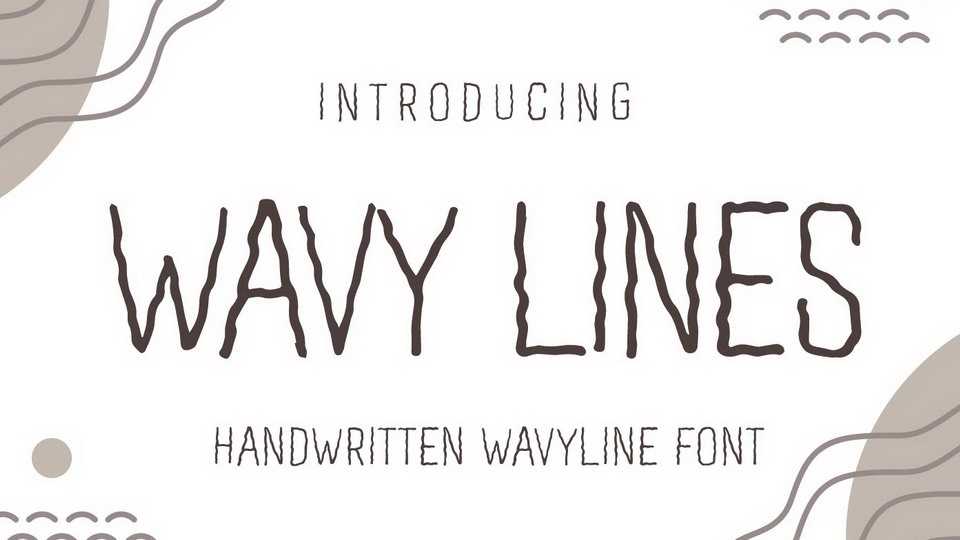
Download Wavy Lines font, a wave line typeface to support your project to make design more beautiful. Wavy Lines suitable for book cover, merchandise, poster, title, quotes, and many more!